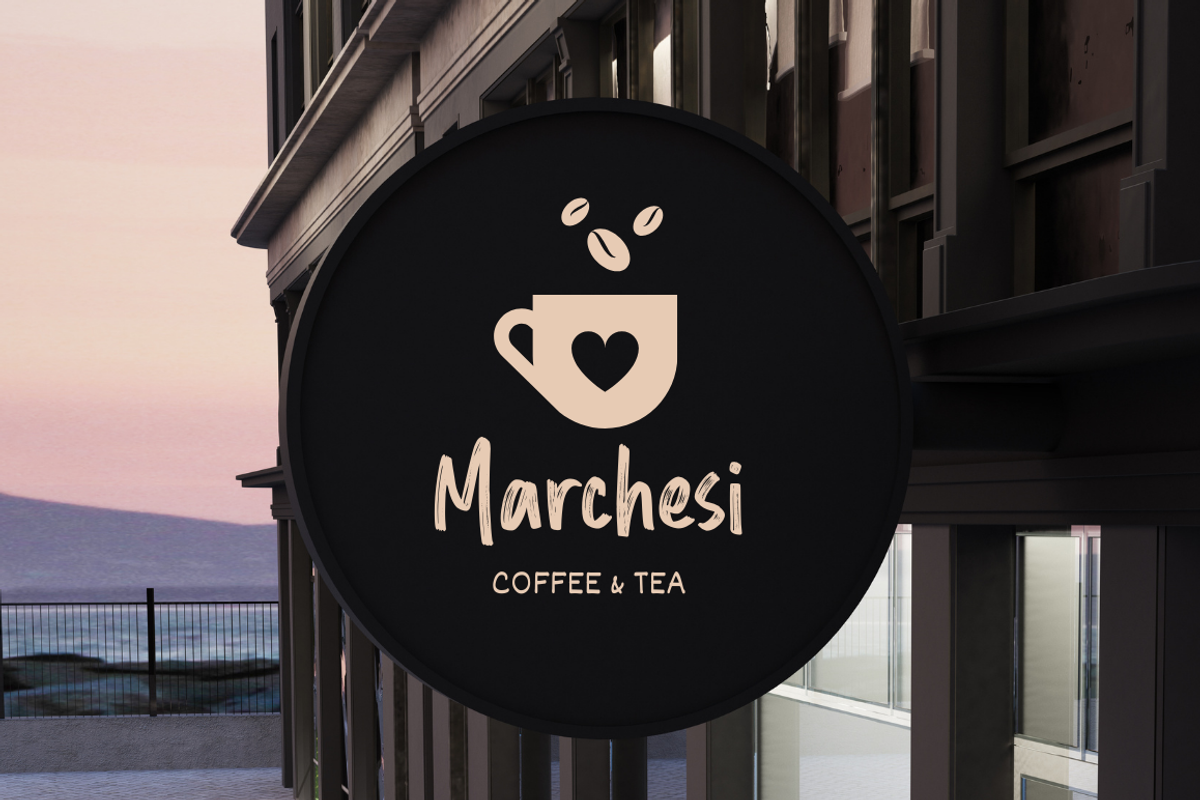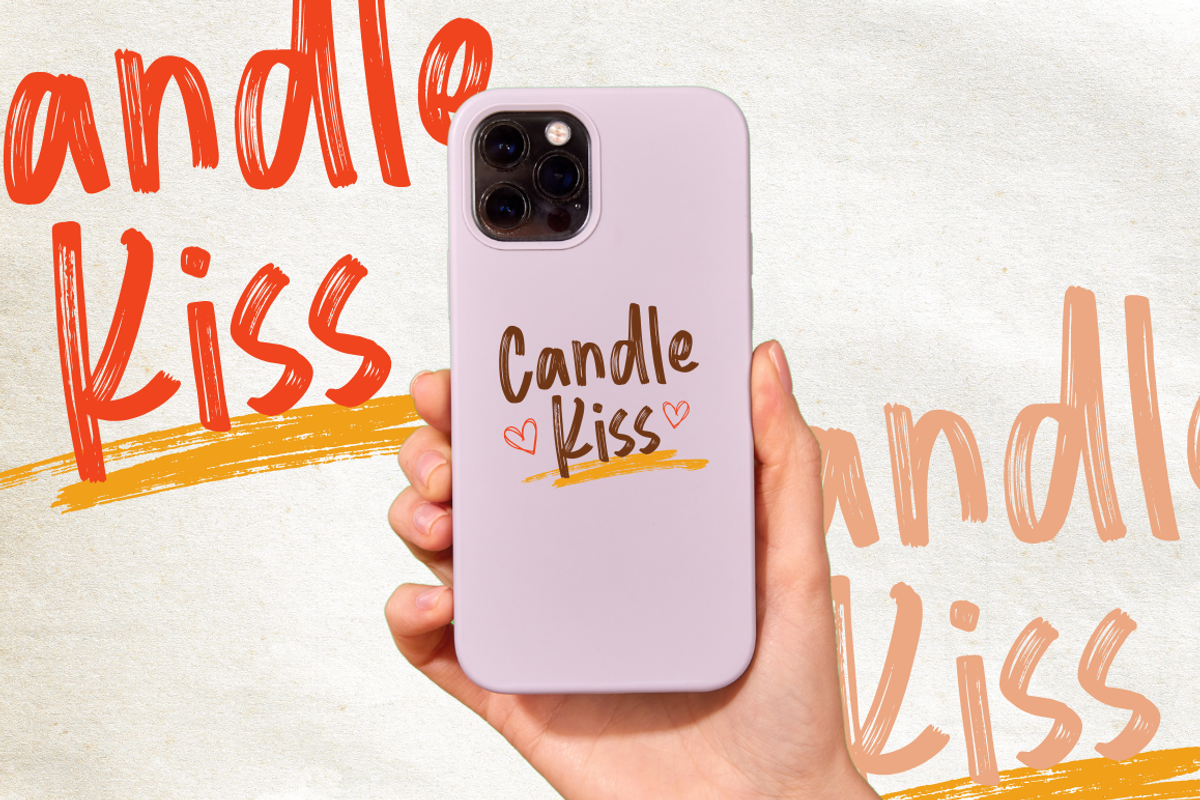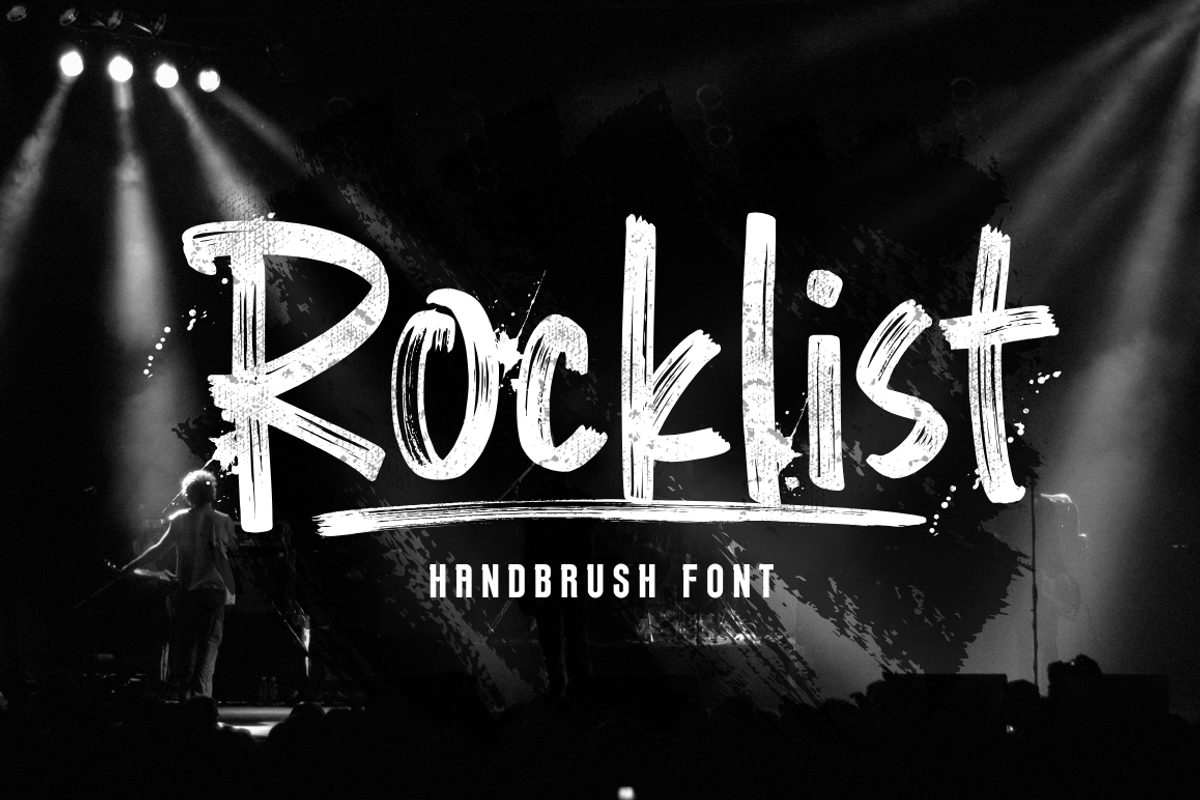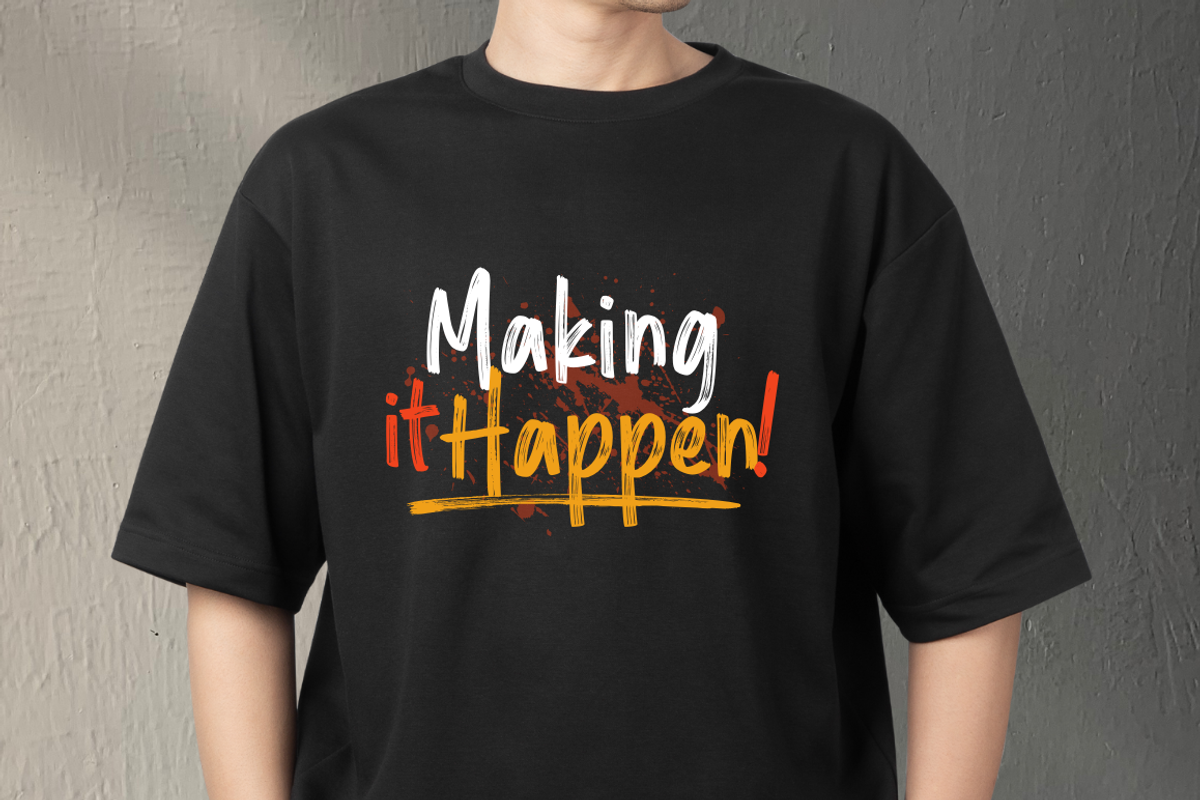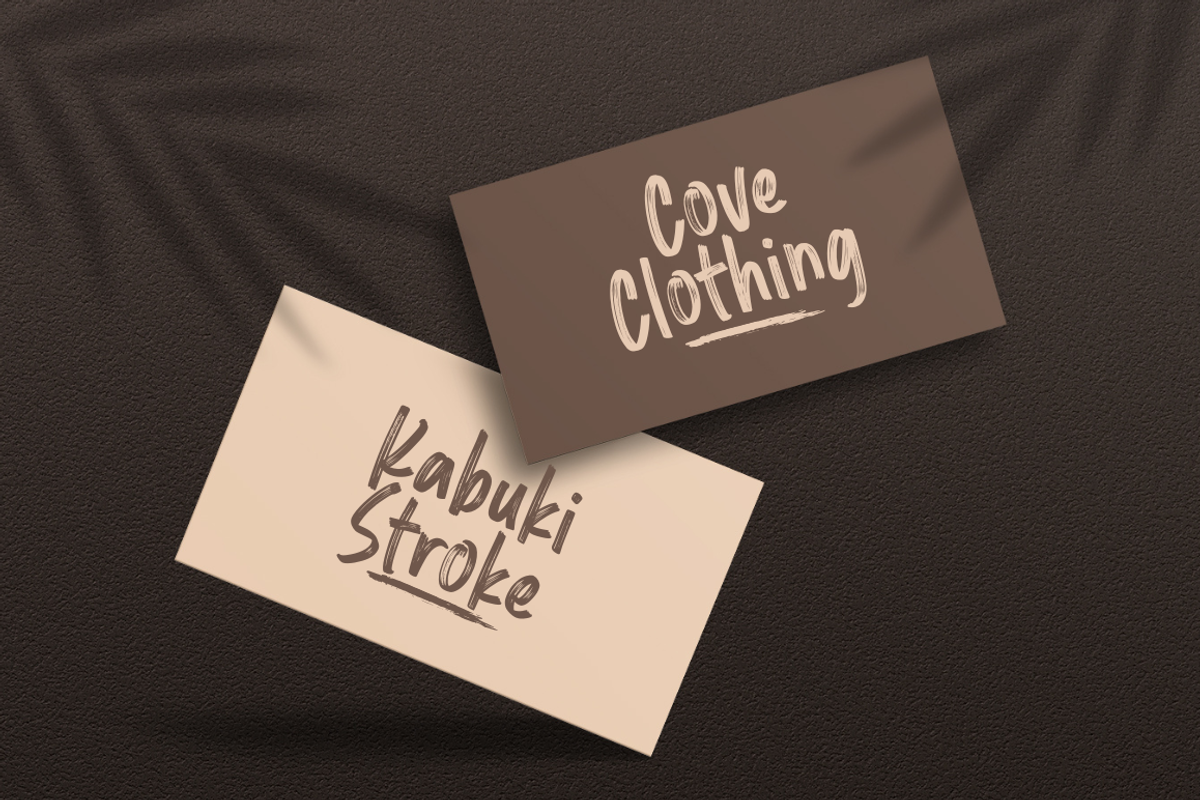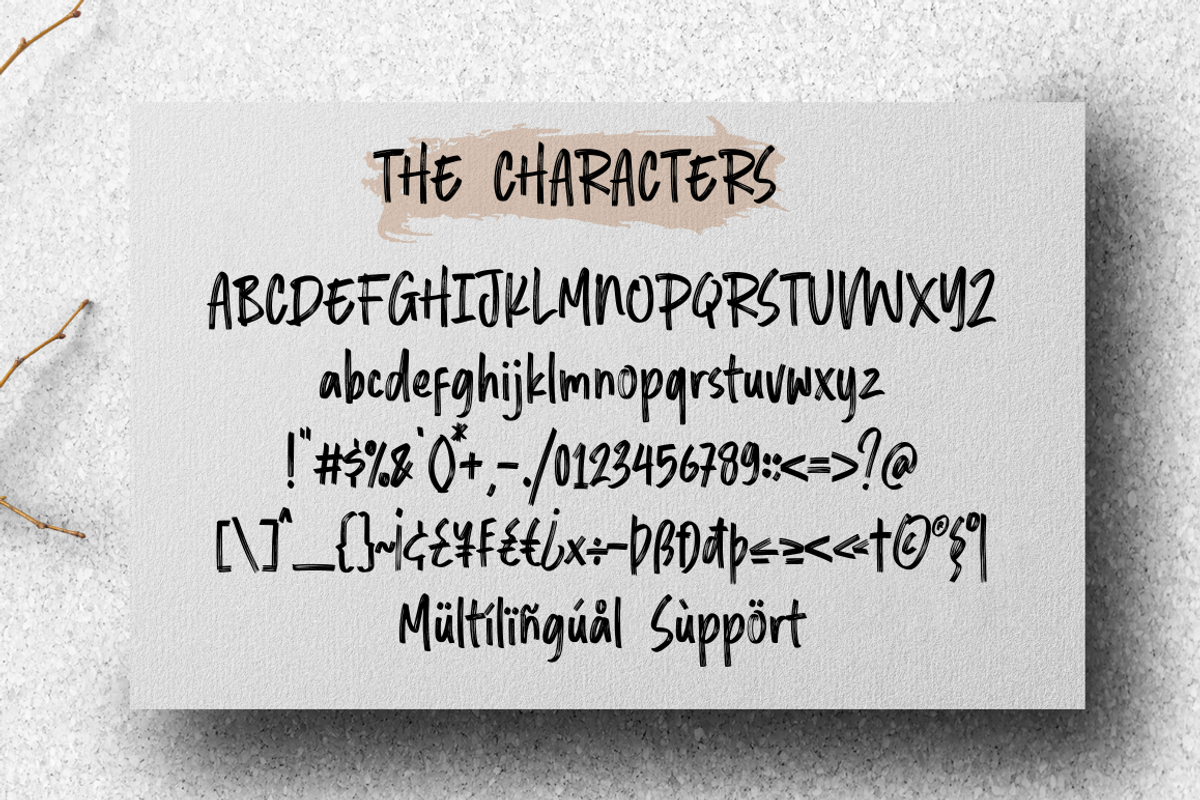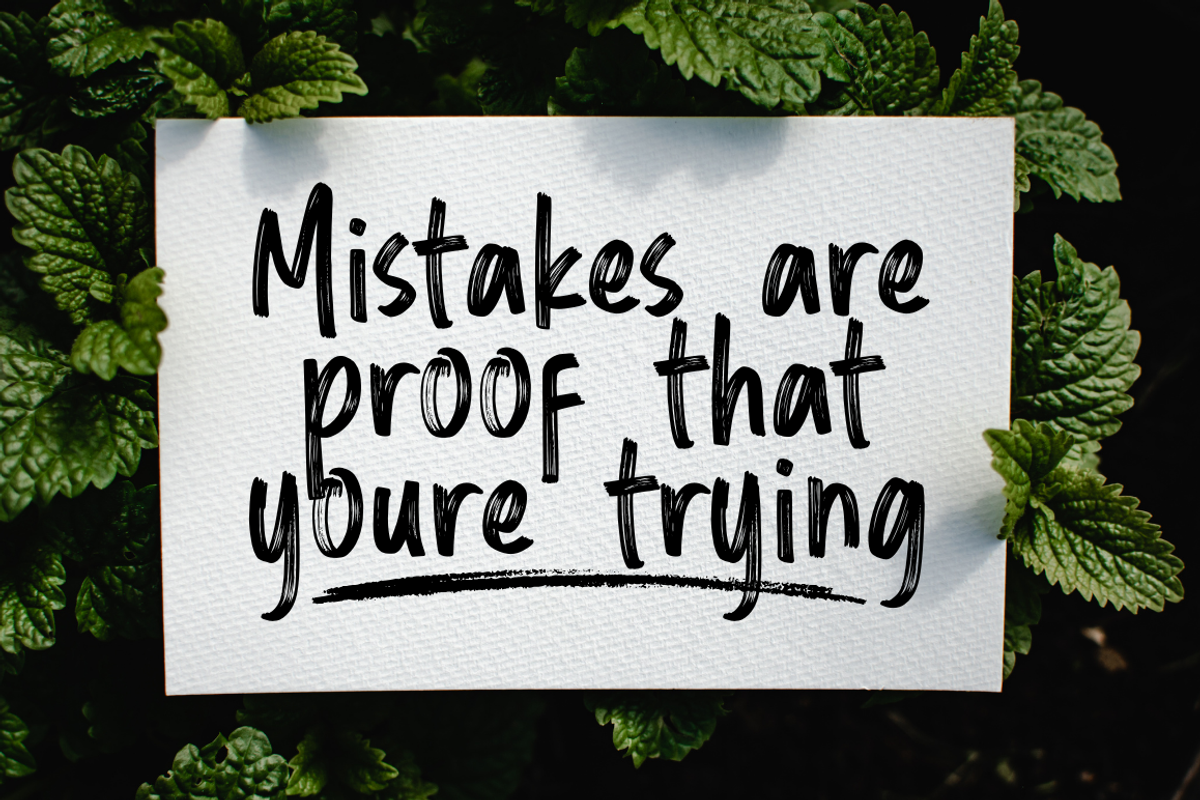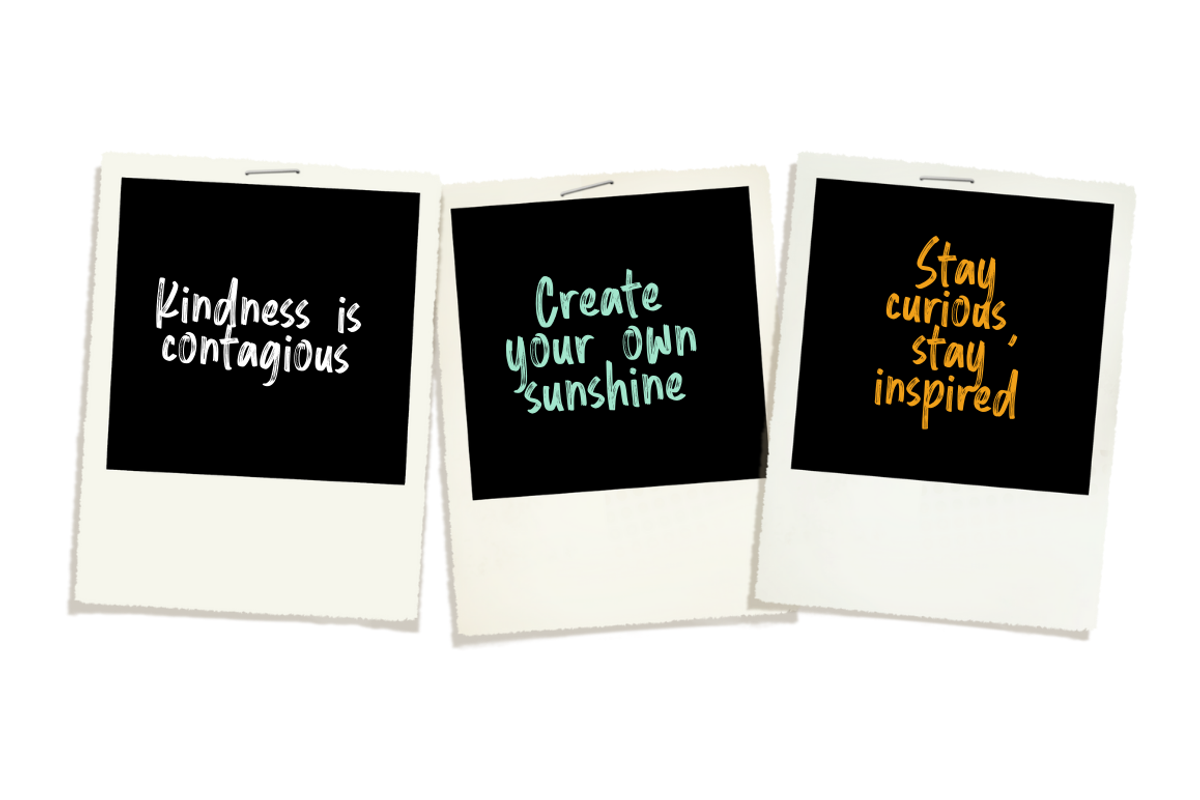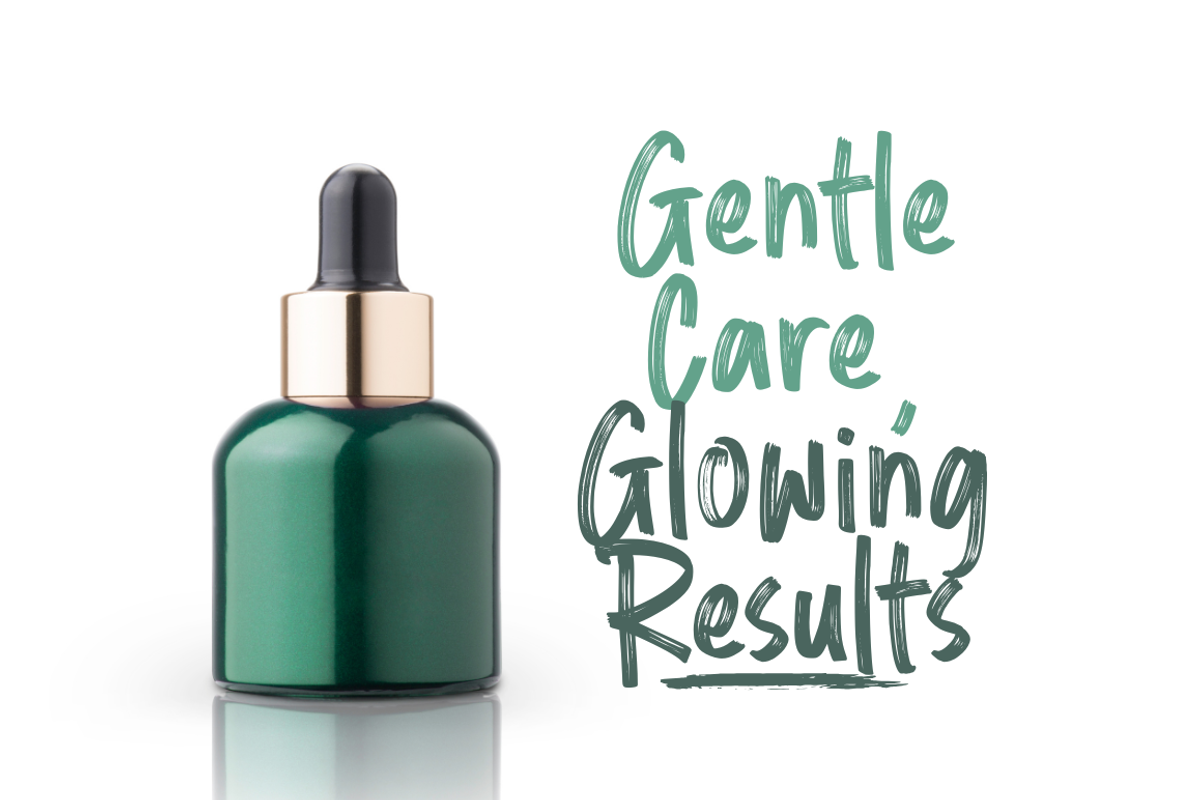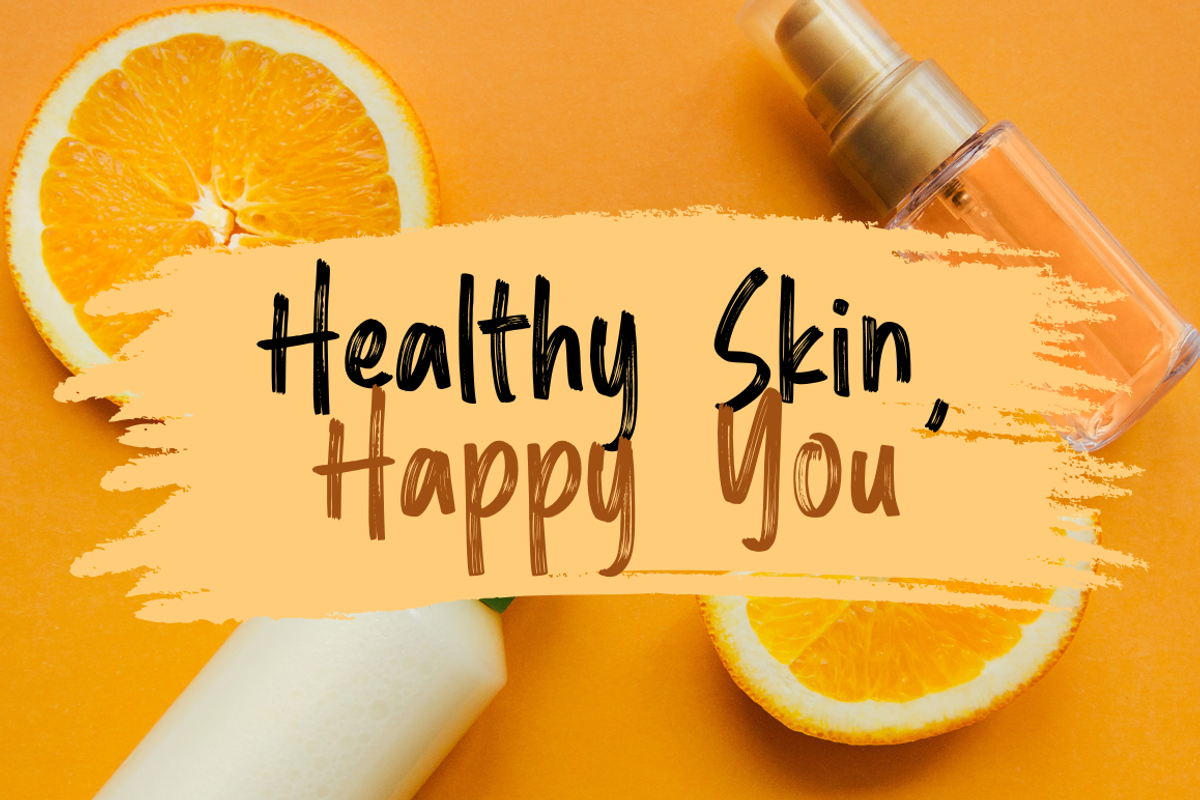
Rocklist Brush Font
Rocklist Brush is a bold and dynamic brush font that brings a raw, artistic vibe to your designs. Perfect for posters, logos, branding, and creative projects, it adds a powerful and expressive touch. Let Rocklist Brush make your work stand out!